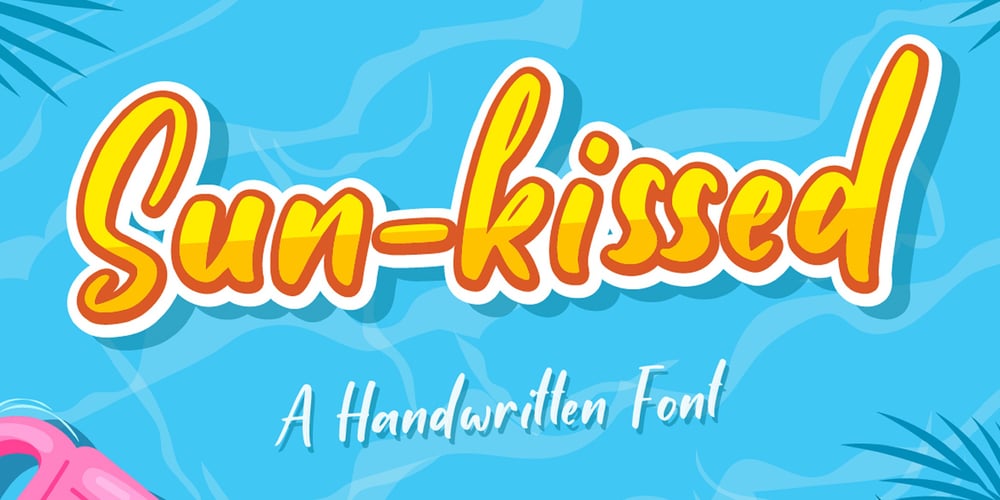
Sun-kissed Font Family was designed by Heri Imanudin and published by Krafted. Sun-kissed contains 1 styles and family package options. “Live in the sunshine. Swim in the sea. Drink the wild air.” ― Ralph Waldo Emerson Hey there sun-kissed beauties! Are you looking for a gorgeous handwritten font that’ll captivate your viewers and make your branding shine as bright as the sun? Introducing Sun-kissed – A Handwritten Font. With every hand-drawn stroke and curve, Sun-kissed will delight and add brightness, modernity, and fun to wherever it’s placed. Impress your party guests with gorgeous invitations, make a statement on your social media banners, and add a little bit of sunshine to your corporate identity. This stylish Handwritten font is also can be used for headings, logos, business cards, printed quotes, cards, packaging, and presentations. What you’ll get: Multilingual & Ligature Support Full sets of Punctuation and Numerals Compatible with: Adobe Suite Microsoft Office KeyNote Pages Software Requirements: The fonts that you’ll receive in the pack are widely supported by most software. In order to get the full functionality of the selection of standard ligatures (custom created letters) in the script font, any software that can read OpenType fonts will work. We hope you enjoy this font and that it makes your branding sparkle! Feel free to reach out to us if you’d like more information or if you have any concerns.